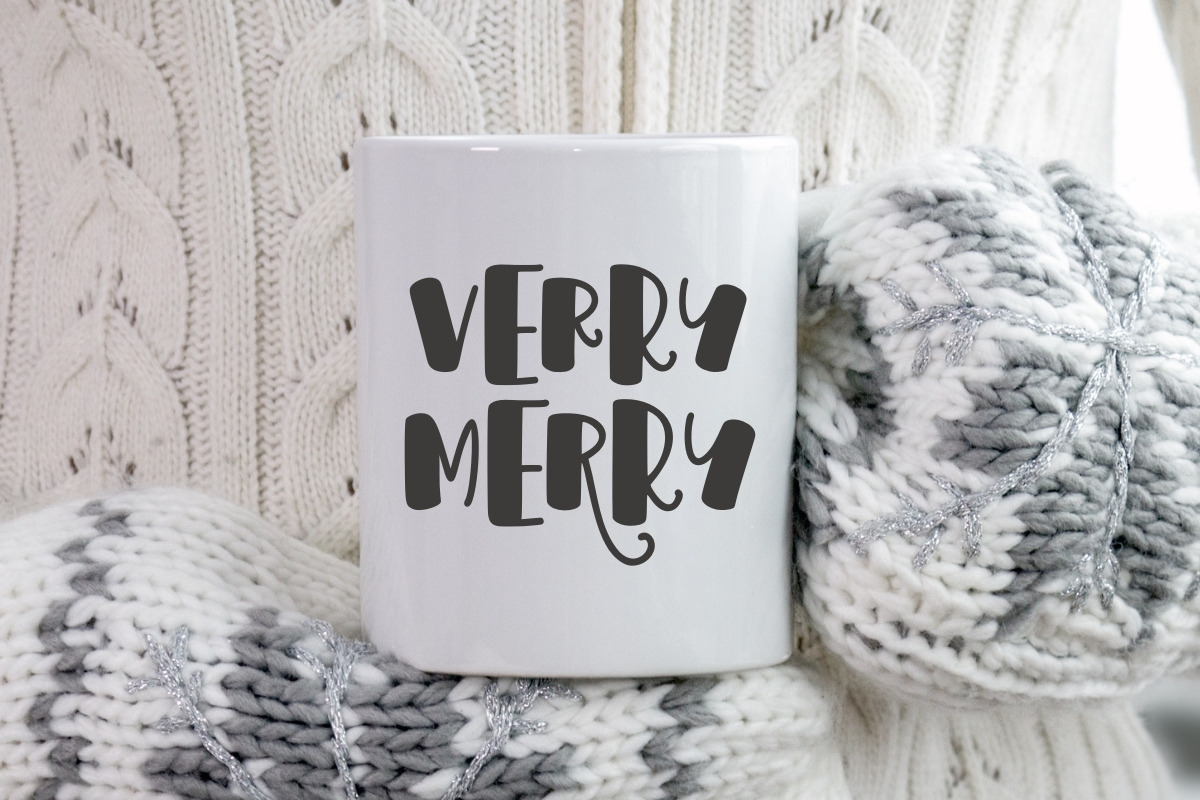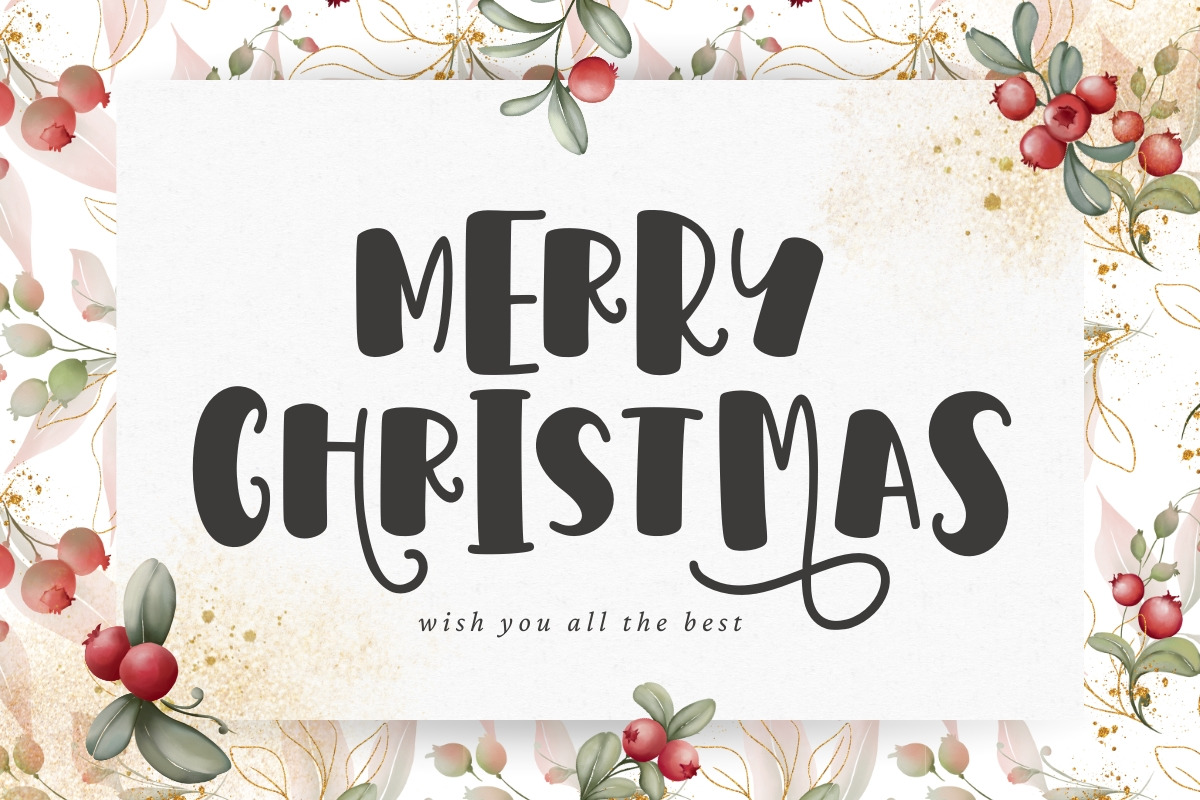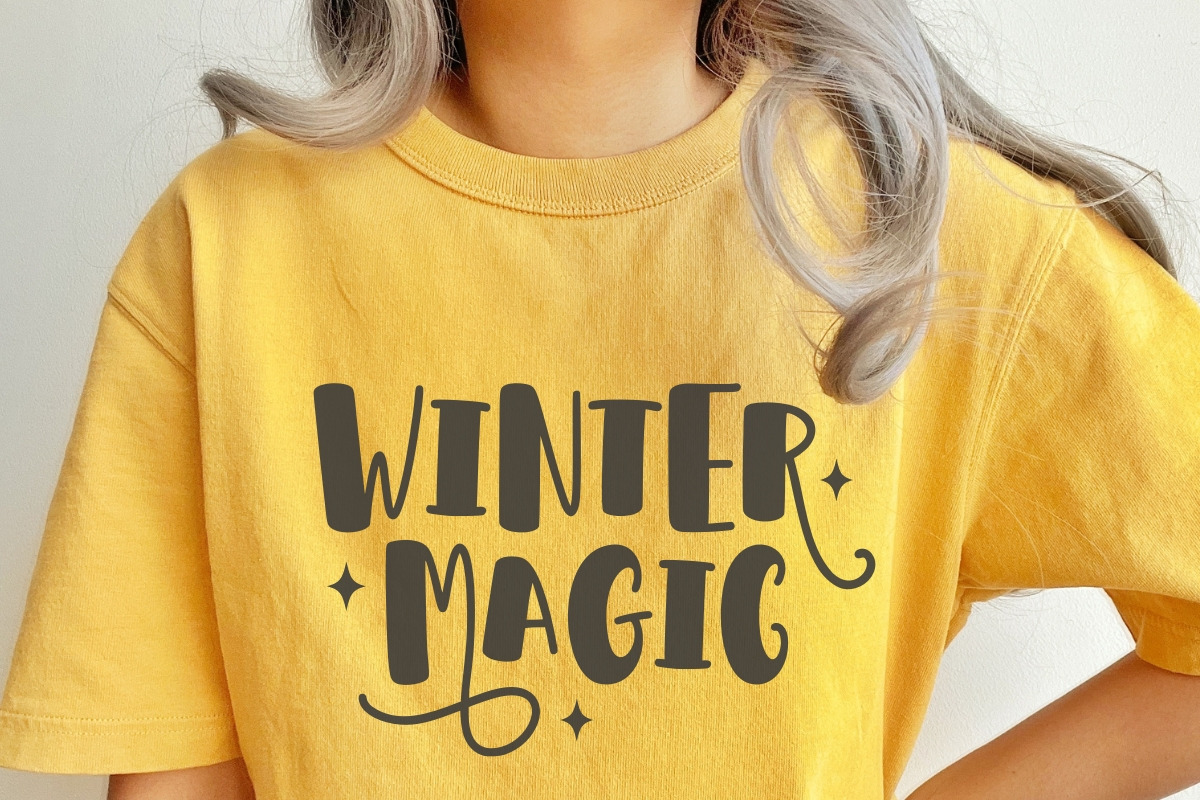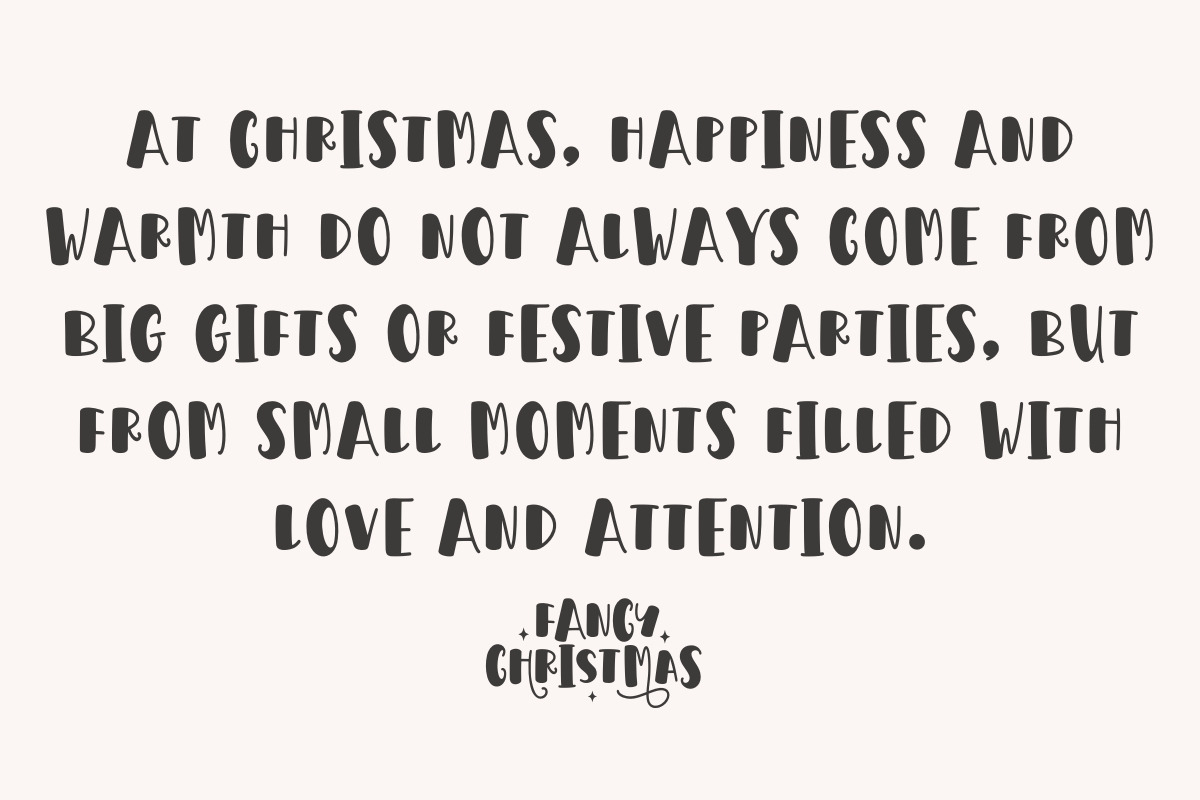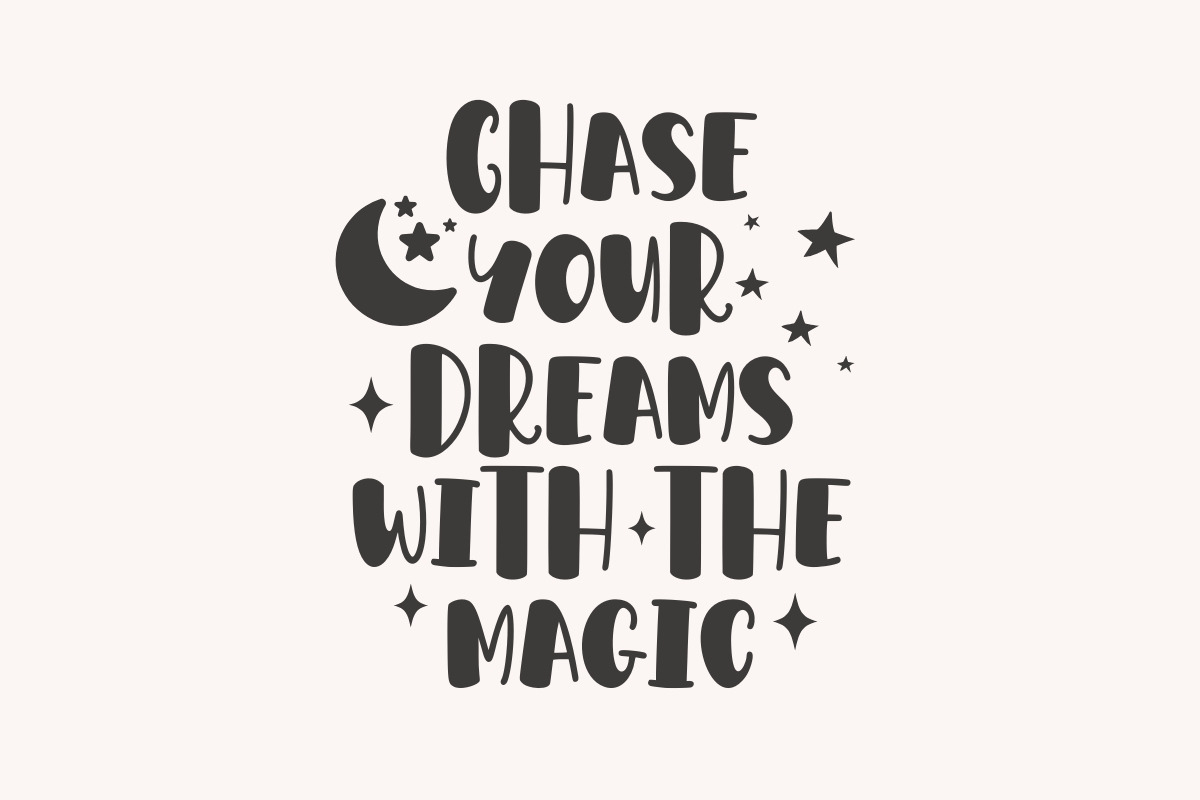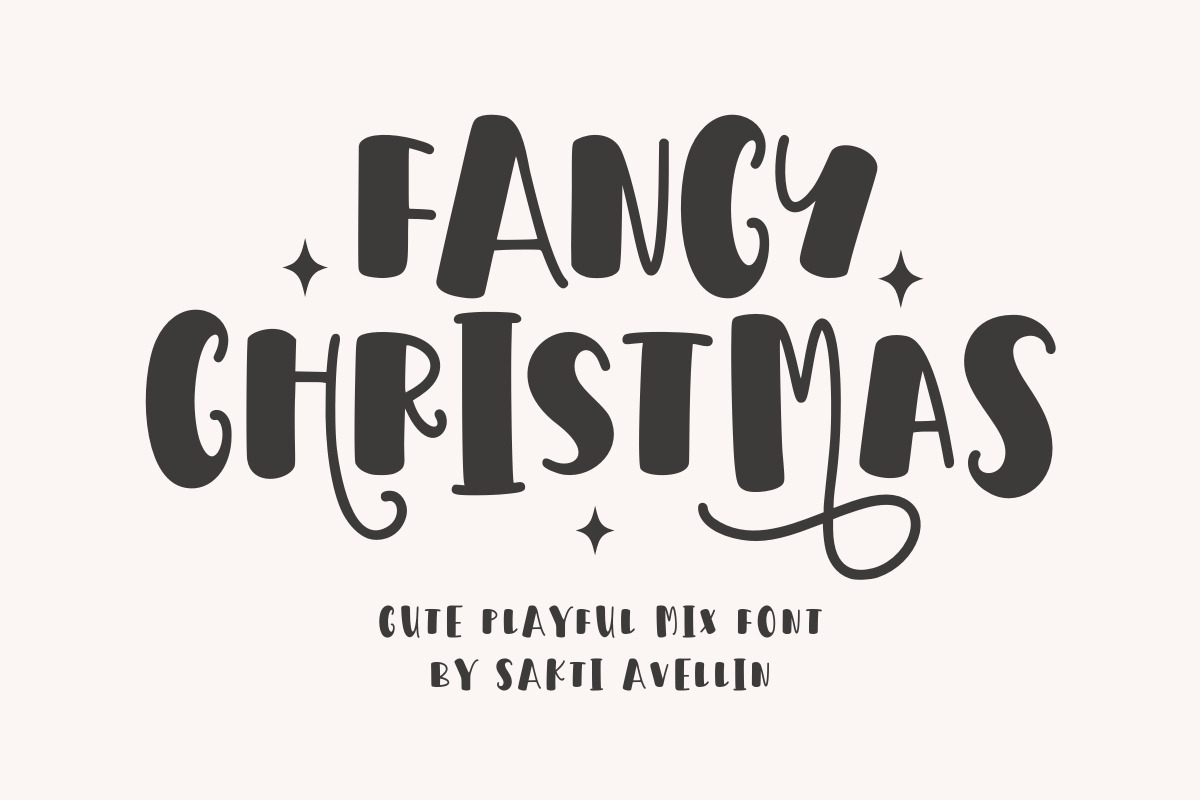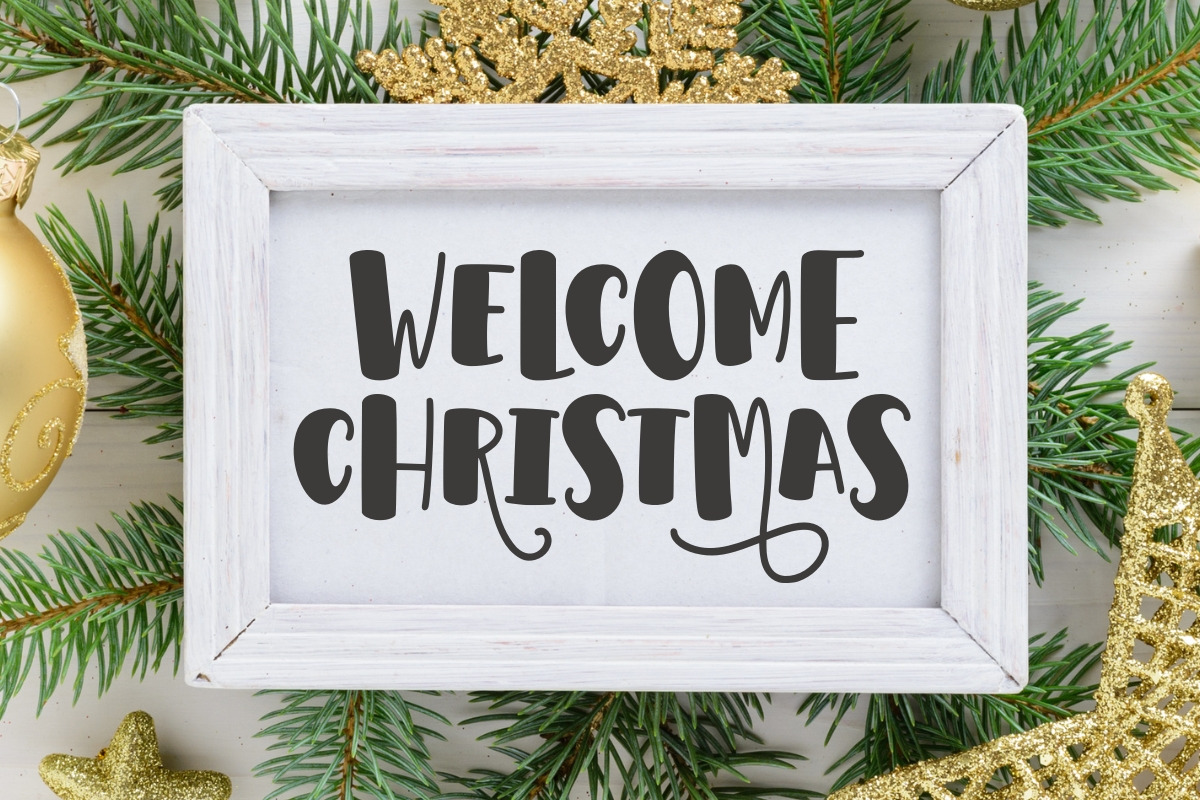
Fancy Christmas - Cute Playful Font
Fancy Christmas is a delightful and cute playful mix font designed to bring a joyful and festive spirit to your creative projects. This chunky display typeface features a unique combination of rounded letterforms and whimsical decorative swirls, making it an ideal choice for holiday branding, Christmas greeting cards, seasonal gift tags, and merry social media graphics. Its friendly, hand-drawn aesthetic and bouncy silhouette ensure it stands out as a powerful decorative font for headlines and packaging, perfect for designers looking to balance seasonal charm with a modern, funky twist. Add a sprinkle of holiday magic to your work with the cheerful energy of Fancy Christmas!